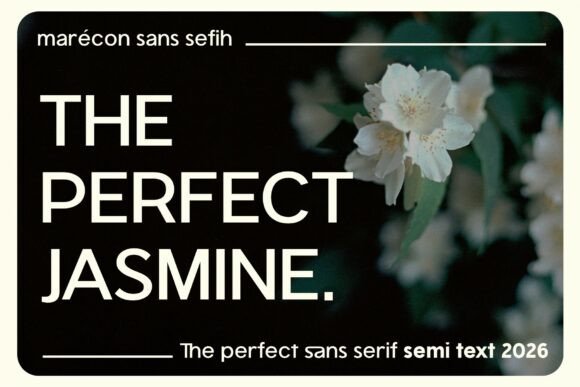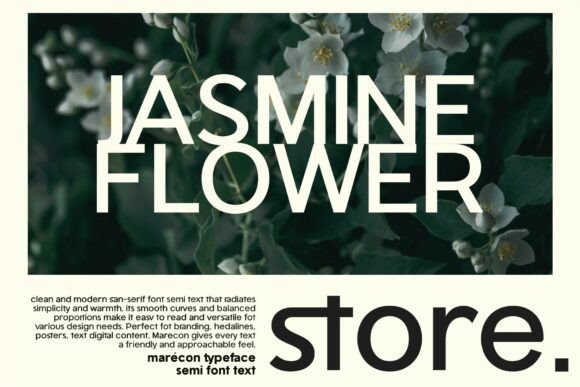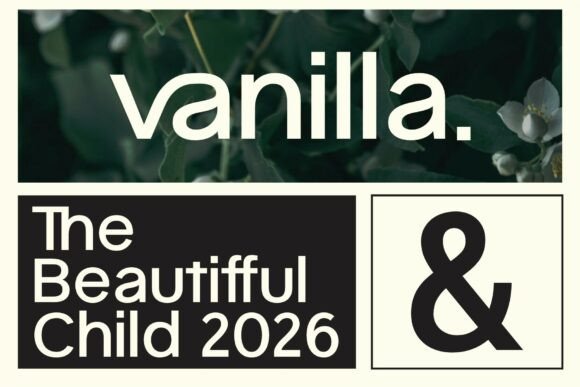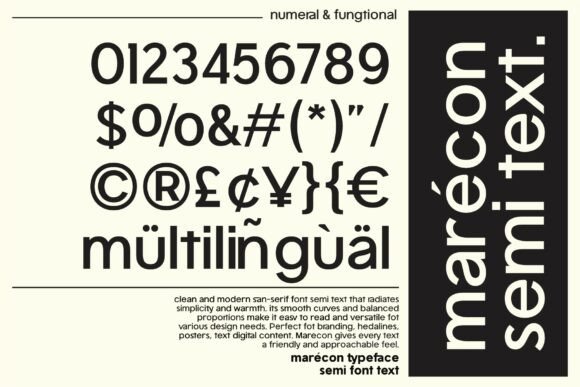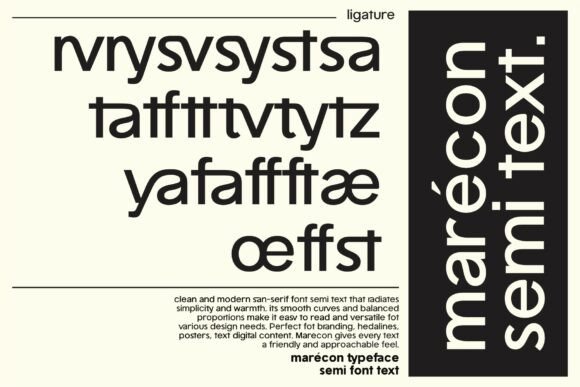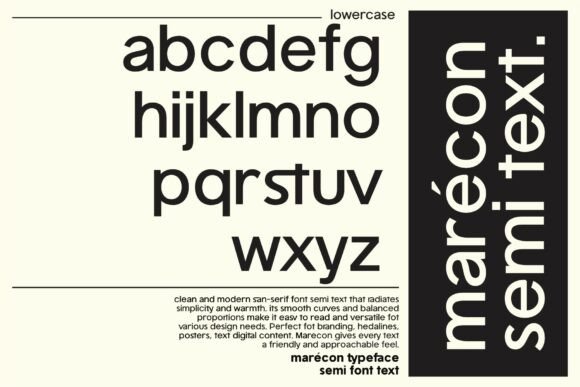
Introduction to Marecon Font
Marécon typeface is the epitome of refined minimalism, designed for those who believe that less is infinitely more.
This Marécon font strikes a perfect balance between humanist warmth and geometric precision, making it an essential tool for high-end branding and editorial layouts Its clean lines and subtle “semi-text” weight allow for exceptional legibility in both body copy and display settings.
Key Features of Marecon Font
Why Choose Marecon Font?
Marecon Font offers exceptional quality and versatility, making it a valuable addition to your design toolkit. Whether you’re creating for personal projects or commercial use, Marecon Font delivers professional results.